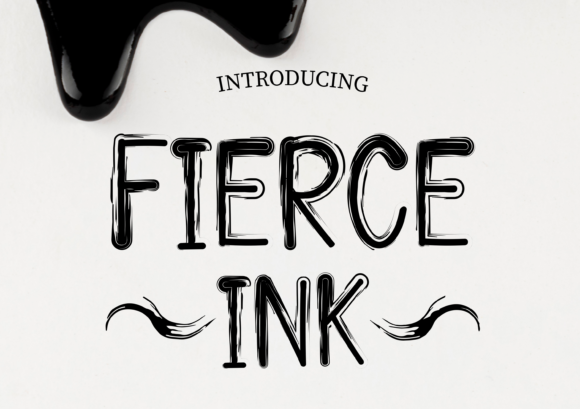
Remember that moment when you finally landed on the perfect font to bring your design to life? The one that made everything click into place and left you wondering how you ever managed without it? For designers, that ‘aha’ moment is a game-changer, and it’s exactly what Fierce Ink Font aims to deliver.
Fierce Ink Font is a stylish, brushed, and simple display font designed to elevate any creation, regardless of the topic or theme. With its clean lines and modern aesthetic, it’s the perfect addition to your font library, guaranteed to take your designs to the next level. Whether you’re working on a bold project or a subtle one, Fierce Ink Font is sure to be an incredibly valuable asset.
Fierce Ink Font Key Features
- Font Family: Fierce Ink, a unique and bold sans-serif font designed for high-contrast readability.
- Character Set: Includes a wide range of characters, including Latin, Cyrillic, and Greek scripts, as well as punctuation and symbols.
- Unique Characteristics: Fierce Ink’s bold and condensed design makes it ideal for use in headlines, titles, and other display typography, while its high-contrast color scheme ensures readability in both light and dark environments.
Fierce Ink Font Review
Fierce Ink Font is an interesting font with a unique personality. I must say, I’m intrigued by its bold and edgy vibe ✨. The font’s distinctive letterforms and heavy lines give it a strong, almost rebellious feel that’s perfect for making statements.
The font works well for titles, headings, and any text that needs a bold and attention-grabbing look ✨. It’s also great for adding a touch of grunge or industrial style to your designs. I appreciate how the font is versatile enough to be used in various contexts, from fashion to tech.
- ⚠️ Readability can be a concern, especially in larger blocks of text. The font’s bold lines and heavy letterforms can make it difficult to read for extended periods.
- ⚠️ The font may not be suitable for body text or small font sizes, as it can become overwhelming and difficult to read.
Overall, Fierce Ink Font is a solid choice for designers who want to add a bold and edgy touch to their designs. While it has its limitations, the font’s unique personality and versatility make it a great addition to any design toolbox. With proper usage and consideration, Fierce Ink Font can be a powerful tool for creating attention-grabbing designs.
Getting the Most Out of Fierce Ink Font
For the best results, use Fierce Ink Font in bold or italic styles to emphasize key points. Experiment with different font sizes and colors to create a visually appealing design.
Fierce Ink Font is ideal for:
- Blogging and writing
- Marketing and advertising
- Graphic design and branding